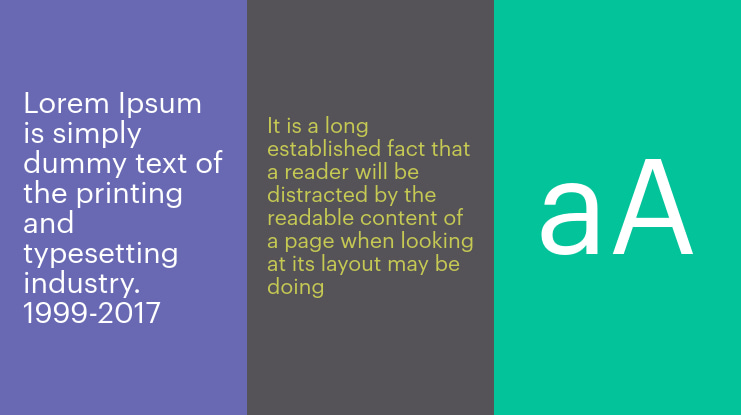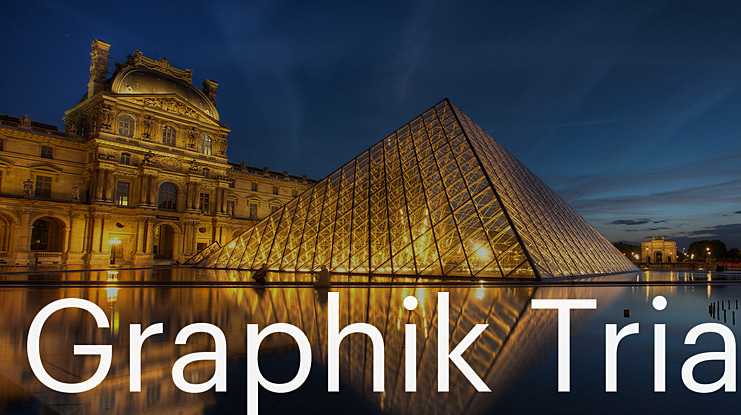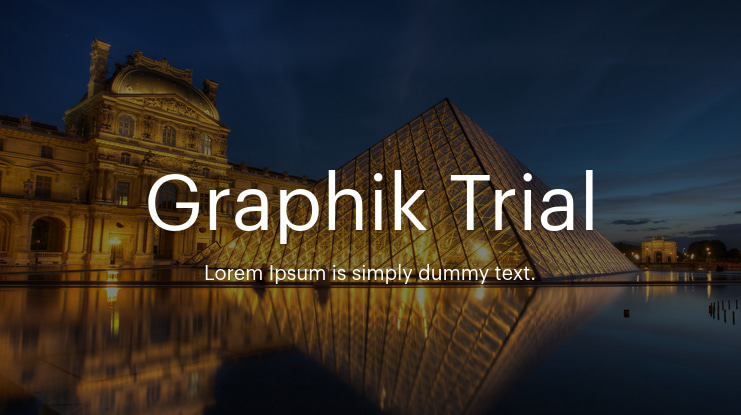
This is a convenient and modern grotesk sans serif features low contrast details to cover small text purposes. With a rational grid composed of nine weights in eight different widths, the Graphik Collection is created for maximum flexibility in communication. Inspiration for Graphik came from designer Christian Schwartzβs enduring interest in the expressive possibilities found in ordinary sans serif typefaces. This stems from his early exposure to Modernist graphic design, particularly posters, from the mid-twentieth century. The purposeful, elegant plainness and wide range of widths allow the Graphik collection to move effortlessly between being a central design element or playing a supporting role in editorial design, corporate branding, video and broadcast design, websites, apps, and user interfaces.